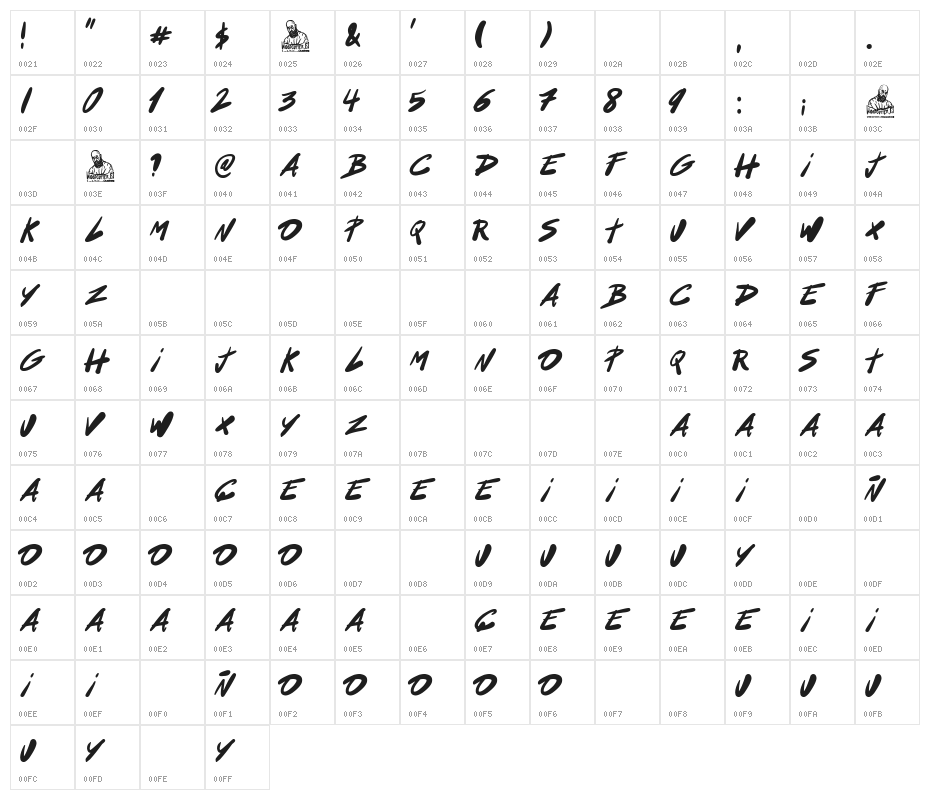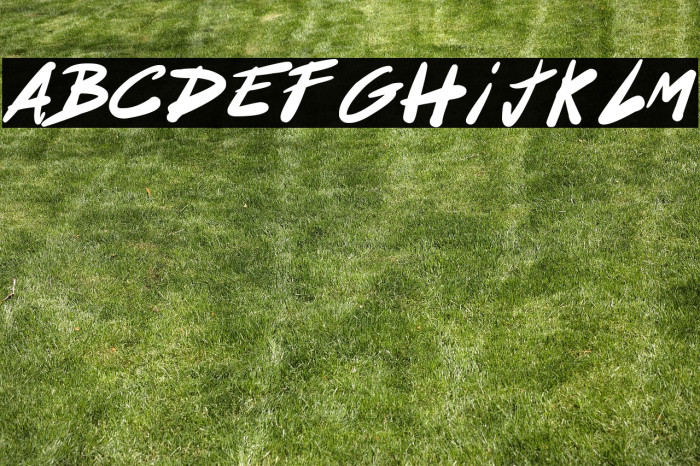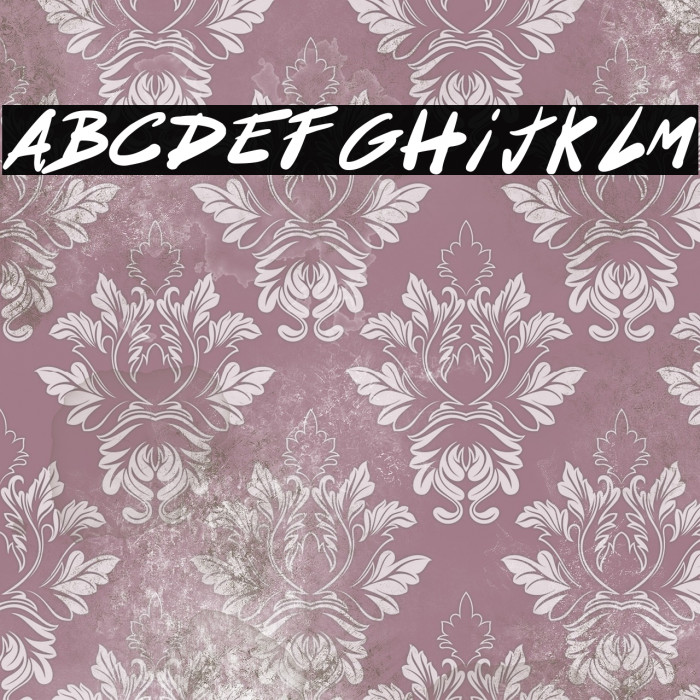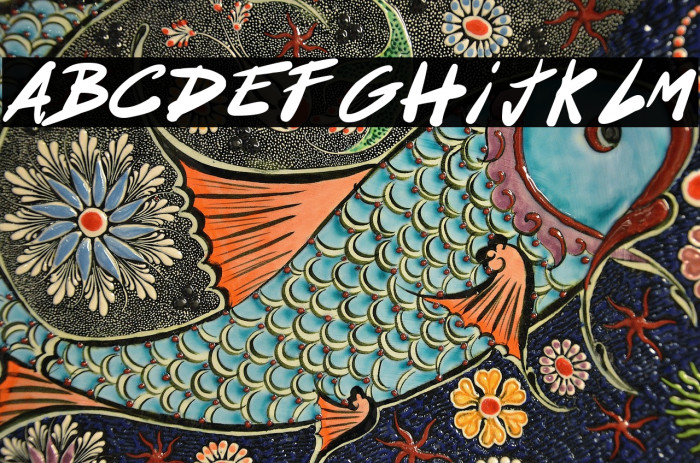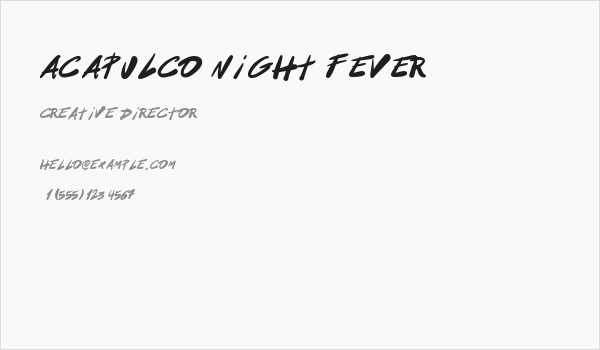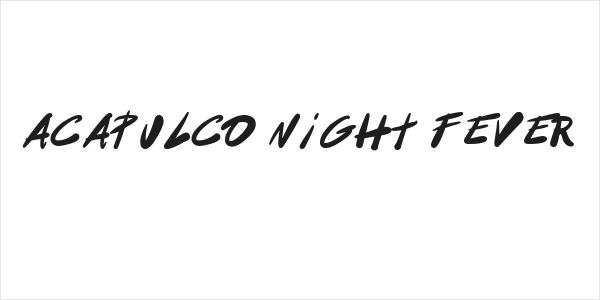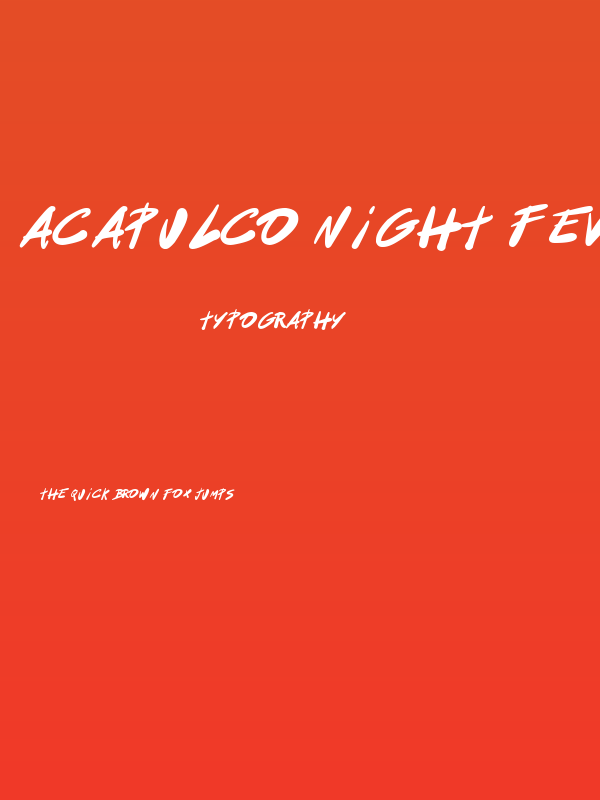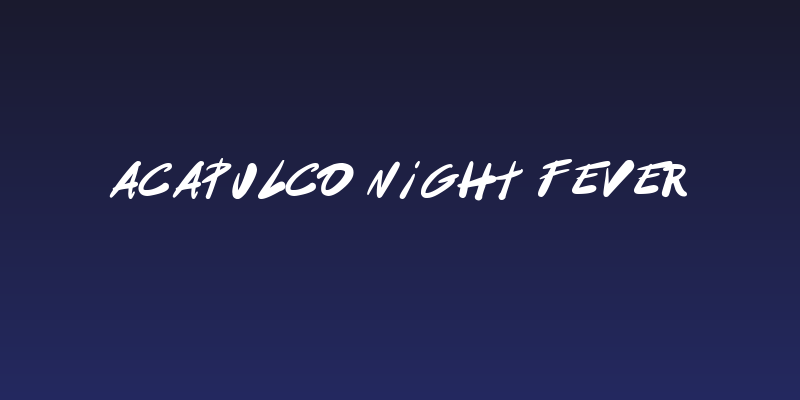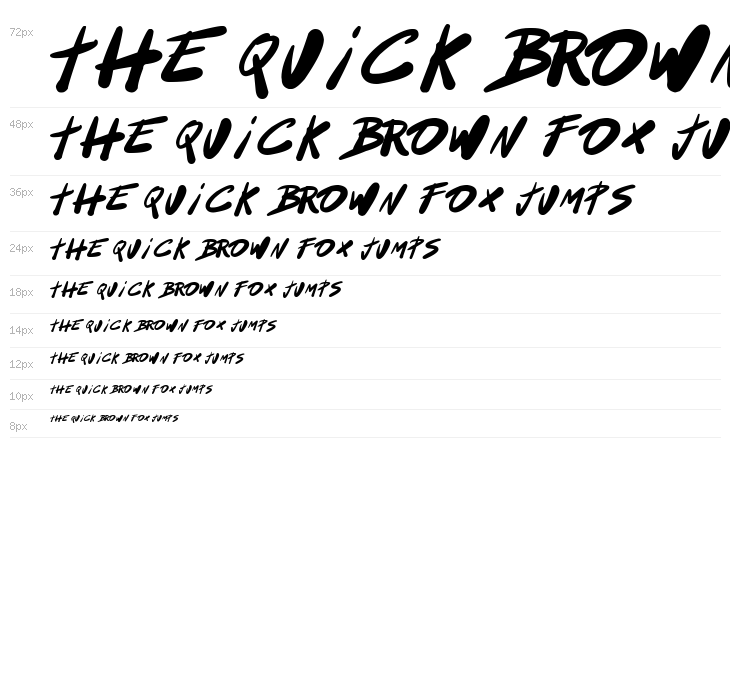
Acapulco Night Fever Font
Acapulco Night Fever Description
A bold, handwritten script font with dynamic, slanted letterforms and expressive strokes. The characters have a casual, energetic feel, with varying thickness and a slightly condensed width. The font includes uppercase, lowercase, numerals, and a selection of punctuation and symbols.
| Overall Style | Decorative, Modern, Energetic |
| Use Case | Headlines, Logos, Posters, Social Media |
| Proposed Projects | Posters, music event flyers, branding for creative businesses, social media graphics, merchandise, and informal headlines. |